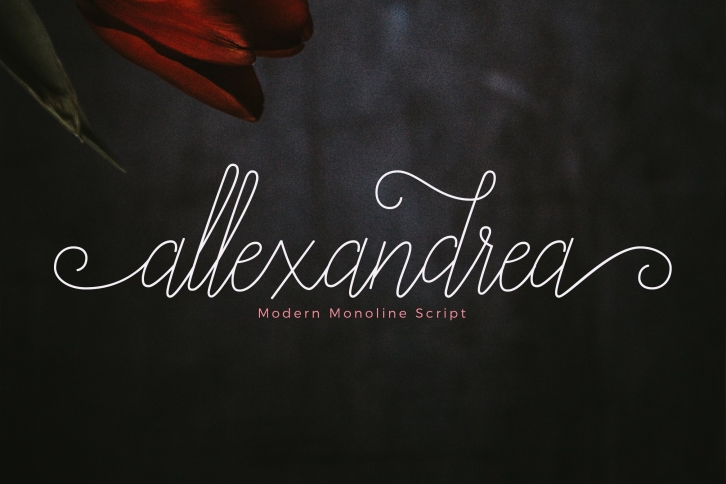
Allexandrea Script is a trendy and unique font with an authentic style. It was designed by Unicode Studio and it's a great choice for creative people who need such a font. It was released on June 24, 2020 and the file size is 8.67 MB. Allexandrea Script will add an organic vibe to any design idea!